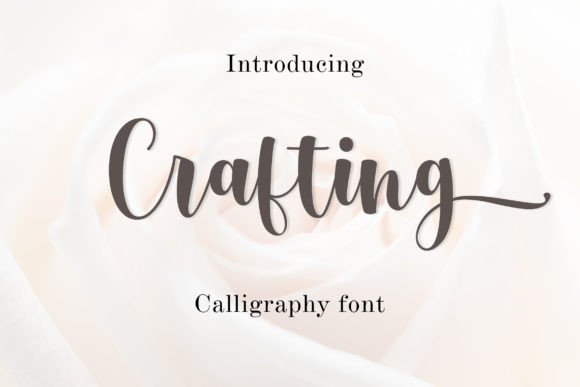
Embrace the Magic of Crafting Font: A Symphony of Elegance and Sophistication for Your Creative Journey
Dive into the world of Crafting Font, a meticulously crafted script font that exudes elegance and sophistication in every letterform. Its slender lines intertwine with delicate curves, evoking a sense of effortless grace and timeless beauty. Discover the allure of this font and unlock the potential to transform your creative projects into masterpieces.
Craft Enchanting Invitations:
Unleash the magic of Crafting Font to create wedding invitations that capture the essence of romance and elegance. Its graceful strokes will add a touch of sophistication, transforming your invitations into cherished heirlooms. Let Crafting Font weave its charm into your special day, leaving a lasting impression on your guests.
Elevate Your Branding:
Inject a touch of luxury and refinement into your branding with Crafting Font. Its modern and sophisticated appearance will elevate your brand's identity, setting it apart from the ordinary. From logos to business cards and marketing materials, Crafting Font will communicate professionalism, attention to detail, and a commitment to excellence.
Unleash Editorial Elegance:
Bring your written words to life with Crafting Font, the perfect companion for editorial design. Its refined aesthetic will enhance the impact of your articles, essays, and stories, captivating readers with its timeless elegance. Let Crafting Font elevate your editorial content, turning mere words into unforgettable narratives.
Create Bespoke Designs:
Open the door to endless creative possibilities with Crafting Font. Its versatility extends to a wide range of design projects, including greeting cards, posters, social media graphics, and more. Whether you're designing for personal or professional endeavors, Crafting Font will add a touch of magic to your creations, leaving a lasting impression on your audience.